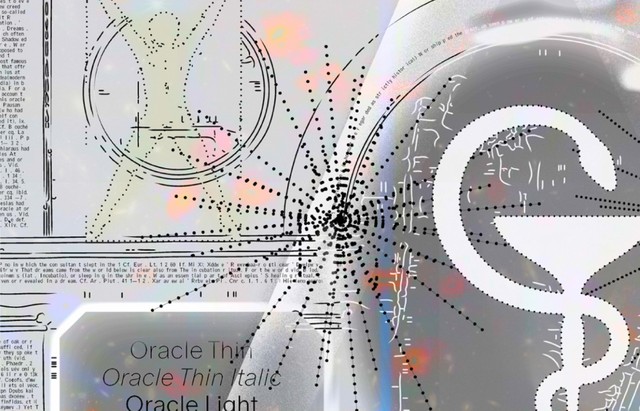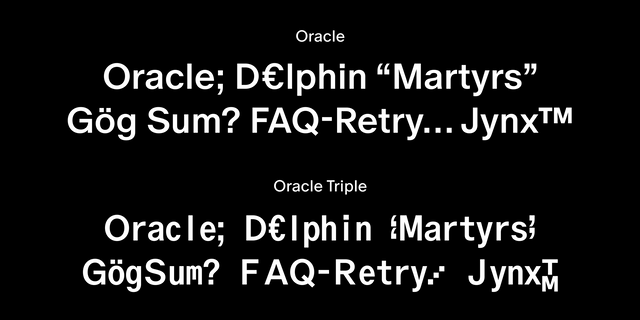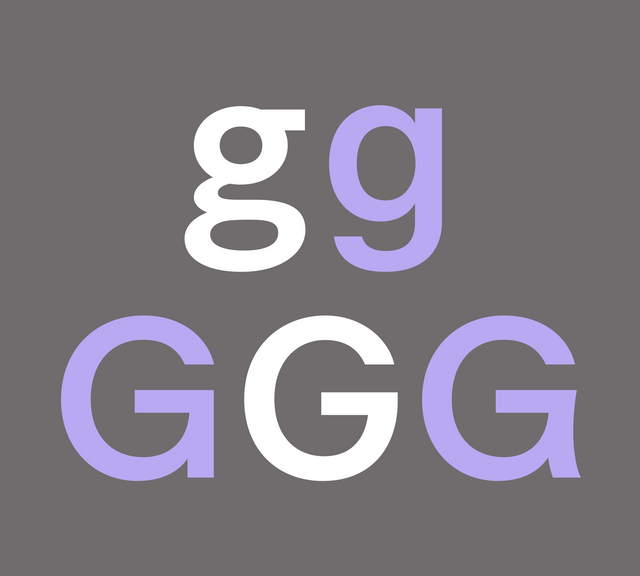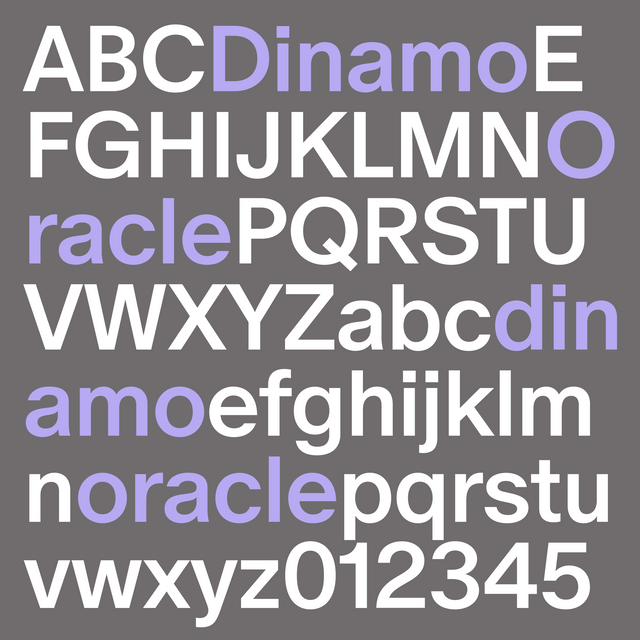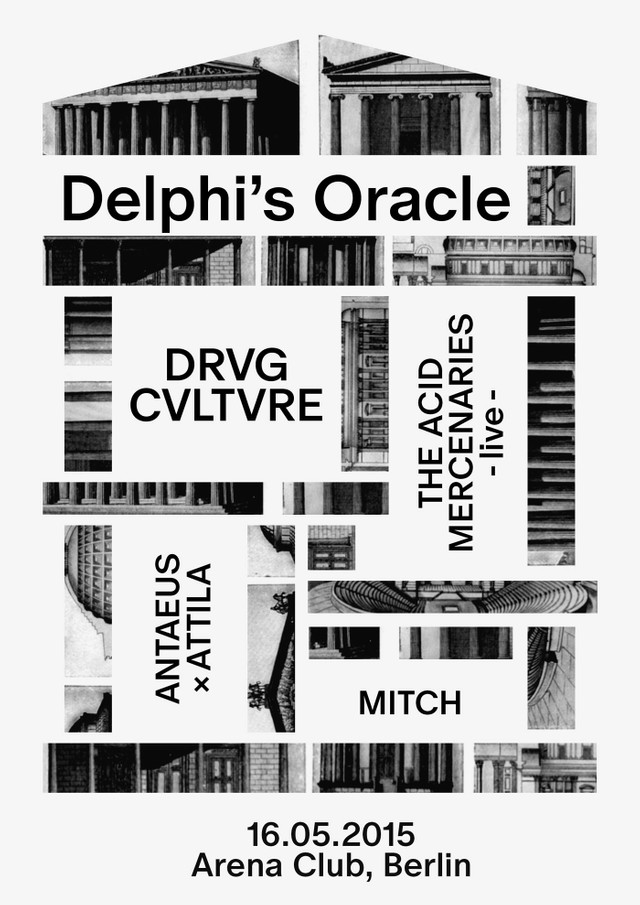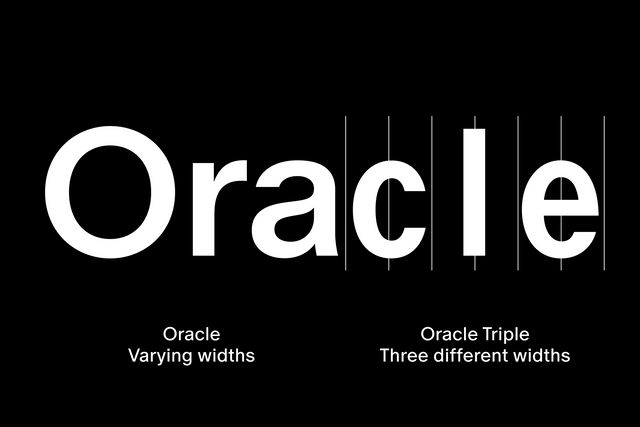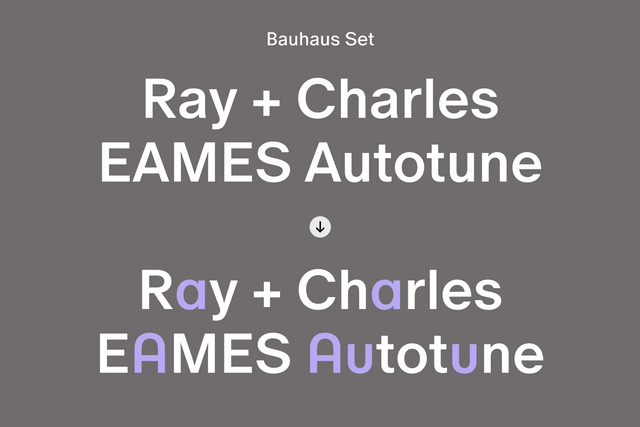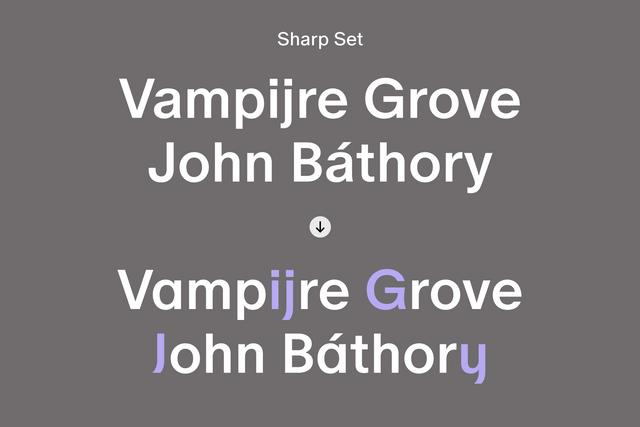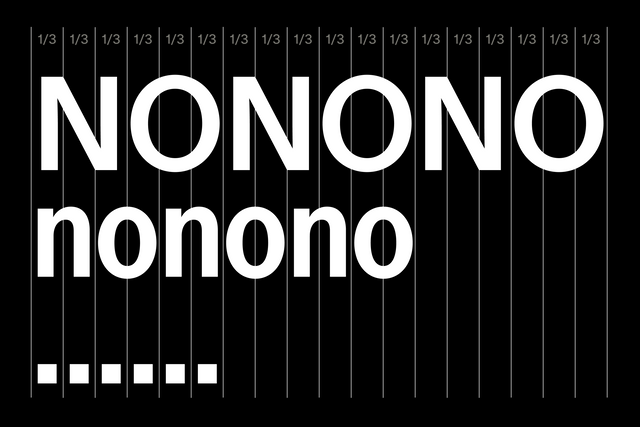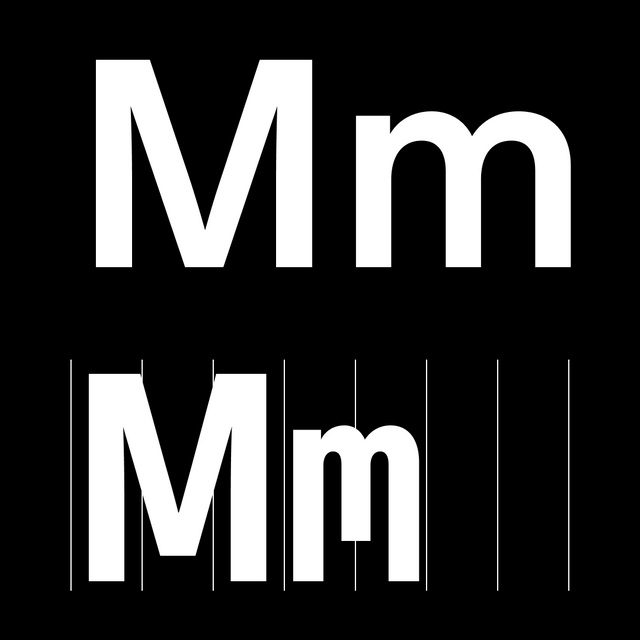
One elegant san serifs + an exploration of rhythm with silly results. Plus Walter Caption Contest winners announced. —
Oracle is out today — a Dinamo double family with an elegant side and a rhythmic one. The typeface is the first (and perhaps the last) to be designed by our co-founder JB.
Oracle consists of two styles that began in the same place but wandered off in entirely different directions...
Family I: Oracle is an elegant san serif with friendly, smooth contours and subtle contrast, available in six weights plus italics. It’s a highly customizable font with a range of alternates and stylistic sets that let you dress it up in a variety of ways.
Family II: Oracle Triple is an exploration of a strict rhythm with silly results. Taking the logic of monospaced letterforms to an extreme, its bounding box has been segmented into units of thirds — with characters taking up differing numbers of units.
Oracle Triple: The Rule
Uppercase take up 3/3
Lowercase take up
2/3
Punctuation takes up
1/3
Battling with a self-imposed system of triples has allowed us to arrive at new and unexpected character solutions and an intriguing rhythm that I haven’t seen before in our catalog. The entire making process — i.e. sticking to a design decision and allowing it to take us in strange and playful directions — feels like a very Dinamo way of working to me.
Family I: Oracle
Let’s take a look at Oracle’s general atmosphere and key characters. It’s overall tone is generous and smooth, with its full O, G, C and curling y, t, f. Compared to Favorit, we’re looking at a friendlier and less constructed design.
Not winning the line breaking contest with this one, am I?
Aspirational
The G-room where lava lamp g and sharp G finally meet
Double exclam and interrobang
Core character set
Not not having more than one A in this font!
Family II: Oracle Triple
In Oracle’s earliest days, Johannes began by playing around with monospace ideas, wondering what would happen if we segmented the design space into units of thirds. If mono (1), why not triple (3)? Could it be a nice problem to have (to quote Fabian), with surprising and rewarding results?
Oracle
Oracle Triple
The two fams share DNA but are built from different bones
YES to 1/3 + 2/3 + 3/3
Some characters of Oracle Triple had to be adjusted to fit the 2/3 space. Like the lowercase m. It has a shortened middle stem (we want it to print cleanly on paper). I believe that this unexpected, beautiful form can — and will — live on in its own right.
The inner gap helps the m stay legible — and it looks cool (which is even more important)
N jumping on top of the o...
...and the ellipsis reaching new heights!
T and M had to climb on top of each other...
...and our double quotation marks had to rethink their sitch (situation)
Other characters like the lowercase l and i sit within a lot of space when placed into units of 2/3. I like to think it justifies — and celebrates — the gaps between letters. But no worries, we also added versions of those glyphs with gap-filling feet attached to the stems ;-).
Double quotes simple
Gap filling feet
Double quotes curly
Alternates
We’ve packed this typeface with a number of individual alternates, which you can swap around using our Dinamo Font Customizer.
Vibe change at your fingertips
Curly or straight quotes
Various sets of numbers
Choose between Helvetica-like squareness or round elegance
Alternates: Flavor Sets
Oracle comes with three stylistic sets that you can switch on or off for three distinctive moods. A bit like the lighting in your smart home!
The Bauhaus set removes stems from characters like the single story a and u, mirroring the rounded, modern feel of something like the Braun logo. Our Vampyr set has sharp, distinctive tails and a witchy vibe with its elongated broom stems. The Schoolbook set is there if you’re looking for something a little more classic and simplified.
Bauwow
Vampyr
Schoolbook
Back in 2015, Johannes was trying to come up for a name for a techno party he was helping organize in Berlin. His parents had subjected him to Latin and Greek classes during high school, which he came to enjoy but only in secret, and now those lessons would finally prove useful.
In Ancient Greece, Pythia, the high priestess of Apollo, a.k.a. the Oracle of Delphi, would breathe in hallucinogenic vapors to inspire predictions. So — tapping into the ideas of getting high, fumes, and entering a different state of mind — the team settled on calling the party “Delphi’s Oracle”